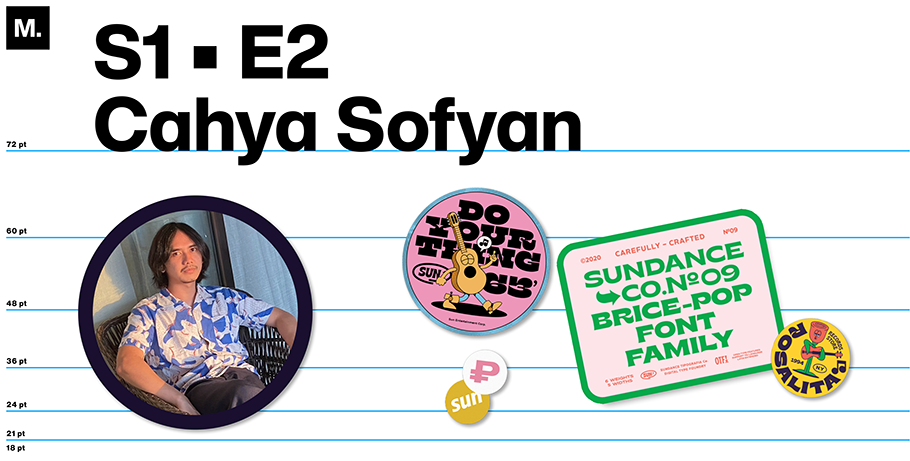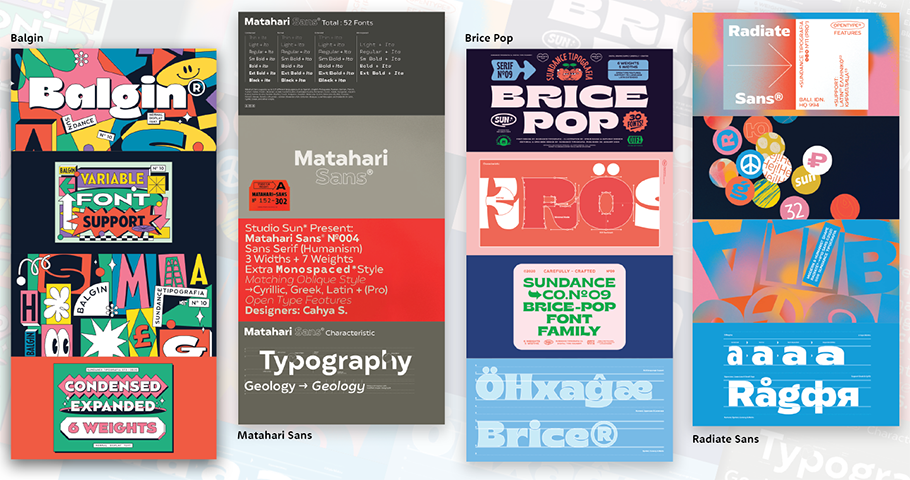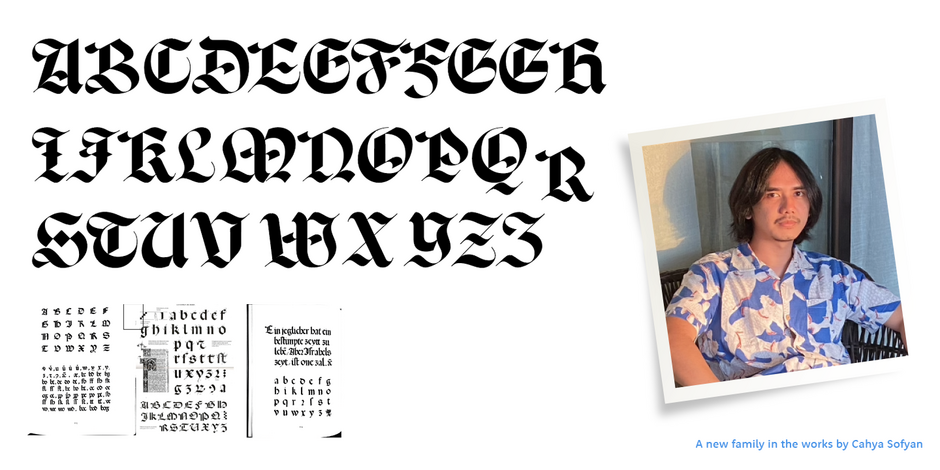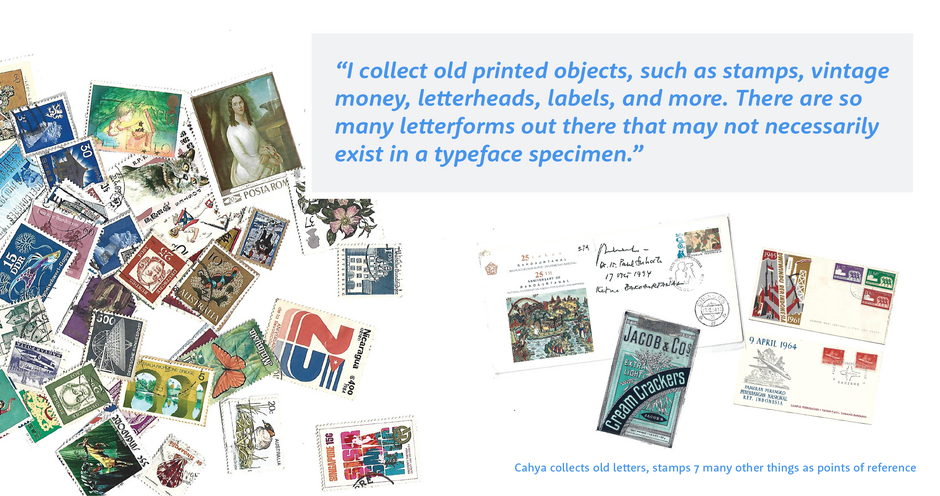
Creative Characters: Up and coming — Studio Sun
For me, fonts really inform the ideal visual work. I was — and am — very compelled to help designers find the right solutions for their work.
Cahya Sofyan’s inspiration knows no bounds. With a lineup of typefaces straight out of the Summer of Love by way of the Pony Express, Sofyan’s display fonts practically vibrate off the screen, while his quieter sans serifs hum with understated grace. Sofyan began experimenting with letterforms at age 19, taking inspiration from history books, found objects, and the world around him. Today, he’s the creative force behind Studio Sun/Sundance Tipografia in Bali, Indonesia.
What inspired you to start drawing type?
I was inspired by Vincent Connare and his Comic Sans® font — a quirky font, but still widely used. Comic Sans is generally pre-installed on almost all PCs, and very easy to recognize. I sincerely hope that one day my work will be owned and recognized by everyone.
When and how did you decide to pursue a career in type?
I started my typography career in 2011, but wasn’t yet selling fonts commercially. I was only designing for myself. For me, fonts are fundamental graphic elements of any visual work. I was — and am — very compelled to help designers find the right solutions for their work.
Once I decided to focus on typography as a career, my wife and I founded Studio Sun/Sundance Tipografia in 2015. My wife is our project manager, managing the work from concept to publication, while I focus on exploring font design. Besides us, we also have a team of graphic designers and copywriters.
Tell us a bit about your education. Are you self-taught, did you attend college, or learn by doing?
I studied visual communication design, where I learned a lot about advertising. Through my studies I gained a different perspective on how fonts can affect society, as well as how best to promote a font. When I began designing my own fonts, I took classes (in person and online), and participated in online discussion forums [with other type designers].
What resources do you use to research and learn about type? Is there a specific aesthetic that inspires you?
I collect old printed objects, such as stamps, vintage money, letterheads, labels, and more. There are so many letterforms out there that may not necessarily exist in a typeface specimen. I really like the early 1900s style where each letter is filled with personality; I also love art deco-style typefaces that contain multiple versions of each letter. This motivates me to infuse my work with character.
What does your design process look like?
We start with some exploratory shapes, sketching digitally or on paper. We like to explore letter anatomy. Then we do some digitizing/vectorizing in the computer software; the whole process takes about four to seven months. We’ll send the demo fonts to our team of designers, who’ll send us feedback. Then we finalize the work.
We start with some exploratory shapes, sketching digitally or on paper. We like to explore letter anatomy.
Have you collaborated with designers or studios in other parts of the world?
We collaborate with artists, illustrators, and graphic designers from all over the world for our promotional kits, which include posters, web banners, and social media campaigns. In early 2020 we created a series of posters for our Brice Font family with illustrators Steve Gavan and Anthony Orozco. This campaign included badges, mascots, graphical elements — even motion graphics by designer Ahmad Syarif Hafidh. Our next project was a collaboration with Sebastian Pren for our Balgin Font family; then we worked with Bernardo Henning (Hola Maybe) and Alfath Yulhanri on a campaign for Radiate Sans. Steve Gavan and Anthony Orozco have also both created promotional posters for Klose Slab and Gulfs Display. Going forward we plan to collaborate with creatives in other mediums.
Have you seen your type used in unexpected ways? How do you feel about people using your designs in unexpected or unintended ways?
Untitled Macau [Design Studio] made a three-dimensional version of our Brice Font family, which I found very interesting. The exposure is an achievement for our studio, too!
Do you have any projects you’d love to tackle in the next 3 years or so?
We focus on designing fonts with lots of scripts; in Asia there are lots of script fonts, both modern and traditional. Our studio wants to archive the history of typography, especially in Asia.
What advice/guidance would you give type designers who are just starting their careers?
Just be original. And trust yourself.